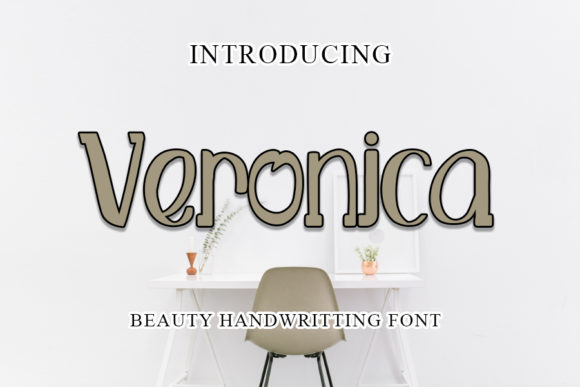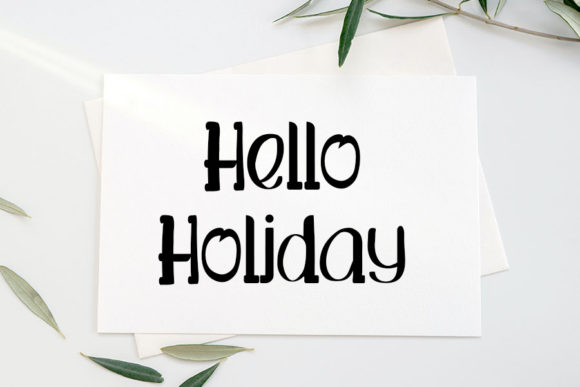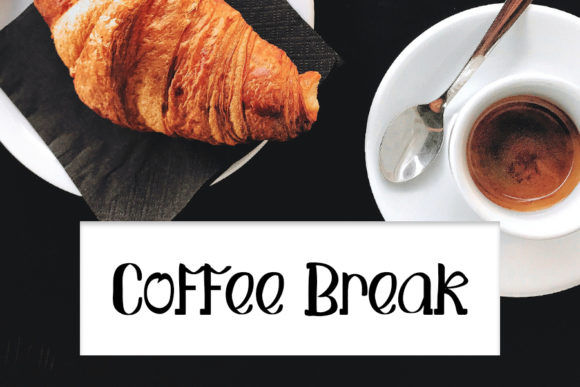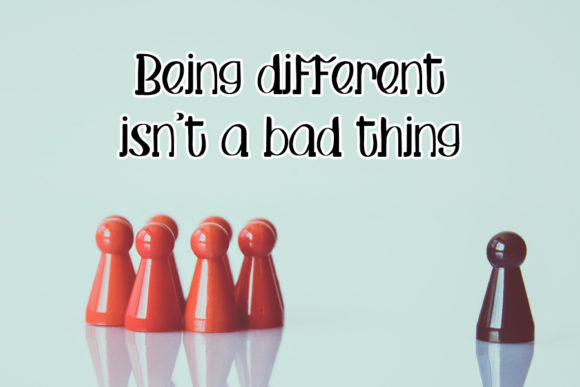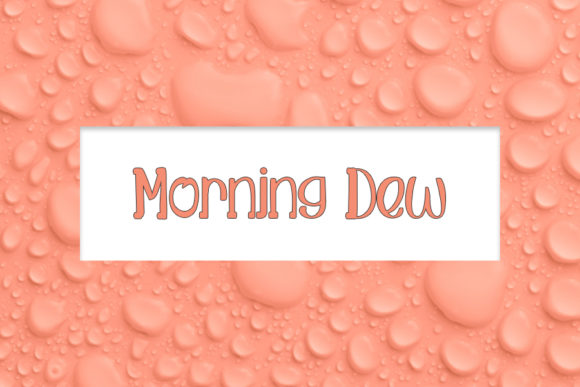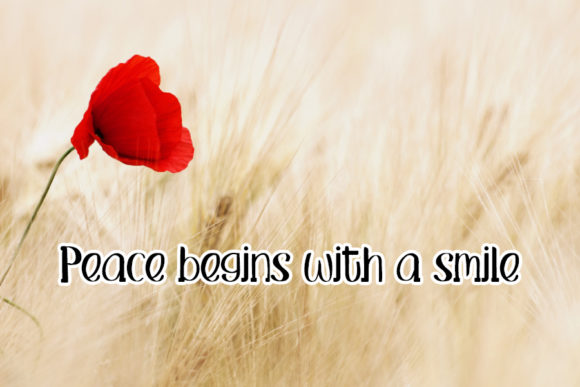
Veronica Font
About Veronica Font
Introducing “Veronica” – a fun handwritten font with a unique style that will bring your most creative ideas to life. With its playful and distinctive characteristics, this font adds a touch of charm and personality to your designs.
Veronica’s fun and handwritten letterforms exude a sense of energy and liveliness. Its unique style sets it apart, making it a perfect choice for adding a creative twist to your projects. Whether you’re designing logos, branding materials, social media graphics, or any other creative endeavor, Veronica will infuse your designs with a delightful and vibrant personality.
This font’s versatility allows it to adapt to various design needs. Its playful nature makes it suitable for a wide range of projects, from children’s products and event invitations to artistic designs and expressive typography. Let Veronica be the element that brings your ideas to life and adds a dash of excitement to your designs.
Adding Veronica to your creative ideas will unlock its full potential. Notice how this font enhances the overall aesthetic and brings a sense of authenticity to your designs. Its handwritten style adds a personal touch and creates a connection with your audience, making your designs more engaging and memorable.
Embrace the fun and unique style of Veronica, and watch as your creative ideas come alive. Let it add that extra spark to your designs, making them stand out and leave a lasting impression. Unleash your creativity and enjoy the playful journey with Veronica!